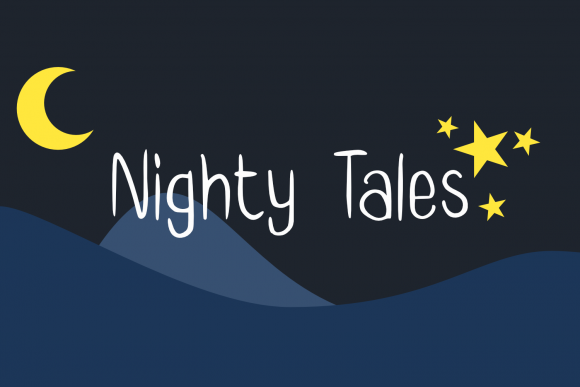
Black Carbony Font: A Cute Handwritten Typography for Digital Design
In the landscape of web and UI design, typography is more than just selecting a font; it's choosing a visual voice. When you're building landing pages, app screens, or online stores, the typeface you use sets the tone before a user even reads a word. Black Carbony, a simple and cute handwritten font, offers a distinct personality that is both flexible and sweet. This script handwritten font can become a cornerstone asset for creators who need a touch of warmth and approachability in their digital products.
Black Carbony for Website Headers and Hero Sections
The first impression of a website is often dominated by its hero section. Using Black Carbony here immediately establishes a friendly, creative, and engaging brand tone. This fonts’s handwritten character conveys authenticity and human touch, which is invaluable for brands that want to feel personal and relatable, such as creative portfolios, boutique e-commerce sites, or coaching service pages. In a hero title, Black Carbony's sweet and simple forms create a wonderful impact without overwhelming the layout. For optimal readability on desktop and mobile, ensure the font size is generous and the contrast against the background—whether light or dark—is strong. Pairing it with a clean, neutral sans-serif for supporting subheadings creates a clear visual hierarchy that guides the user's eye naturally.
Enhancing Landing Pages with Black Carbony Typography
Conversion-focused landing pages rely on clear messaging and emotional resonance. Integrating Black Carbony into key areas like value proposition headlines or testimonial quotes can significantly boost user engagement. The font’s cute and flexible nature makes it perfect for highlighting benefits or features in a way that feels less corporate and more conversational. Imagine a SaaS product landing page using this script handwritten font for its primary tagline: "Simplify Your Workflow." The handwritten style softens the message, making the product feel more accessible. It's crucial, however, to use it sparingly for these high-impact phrases. Avoid setting long body copy in Black Carbony; instead, let it shine as a display font while a standard sans-serif handles the explanatory text, maintaining scannability and professional readability.
Black Carbony in Online Store Branding and Banners
For online store owners, visual consistency across banners, product badges, and category headers builds a memorable brand identity. Black Carbony excels in this niche. Its endless variations allow you to create a cohesive yet dynamic look. Use it for seasonal sale banners ("Summer Sale"), special product collection titles, or even as stylized text on product imagery itself. The font injects a playful, handmade quality that can elevate brands selling artisanal goods, children's products, fashion, or lifestyle items. This premium font supports a consistent online identity by providing a unique typographic signature that users will associate with your brand's personality across every touchpoint, from the storefront to social media graphics derived from your web assets.
Using Black Carbony for Call-to-Action Buttons and Labels
Even small UI elements like buttons and labels benefit from thoughtful typography. Applying Black Carbony to a primary call-to-action button, such as "Get Started" or "Add to Cart," can make the action feel more inviting and less transactional. The sweet, handwritten style can reduce perceived friction and increase click-through rates. In practice, ensure the font remains legible at smaller sizes by checking its performance on various devices. On dark backgrounds, a light or white color for the font will maintain clarity. This fonts’s flexibility means it can adapt to these compact spaces while still contributing to the overall cute and creative aesthetic of your site or app screen.
Digital Readibility and Visual Hierarchy with Script Fonts
A common concern with script fonts is digital readability, especially on mobile screens. Black Carbony, being simple and deliberately cute, mitigates this issue with its clear character shapes and generous spacing. When implementing it in responsive layouts, test its appearance on multiple breakpoints. It is best suited for medium to large display sizes—perfect for section headings, blog post titles, or content section introductions. To establish a strong visual hierarchy, use Black Carbony as your primary accent font (H2 or H3 level), paired with a highly legible sans-serif or serif font for body paragraphs. This pairing creates a rhythm that is both visually appealing and functionally sound, guiding users through your content with ease and reinforcing brand trust through consistent, professional design.
Brand Tone and Identity for Digital Products
For digital product creators, from app developers to course creators, typography is a silent brand ambassador. Black Carbony communicates a tone of creativity, warmth, and approachability. Using this font across your product's marketing site, within the app interface for feature names, or on course sales page headers creates a unified brand experience. Its handwritten aesthetic tells users that your product or service is human-centered and friendly. This is particularly effective for brands in creative education, wellness, lifestyle, or any sector where building a personal connection is key to conversion. The font becomes a vital part of your digital brand kit, ensuring that every branded web experience feels cohesive and intentionally designed.
Pairing Black Carbony with Web Fonts for Balanced Layouts
Successful web design rarely relies on a single font. Font pairing is essential. Black Carbony, as a decorative display font, needs a strong, neutral counterpart. A simple sans-serif like Inter, Open Sans, or Roboto for body copy provides the perfect balance. For a more editorial or classic digital identity, a serif font like Merriweather or Lora can pair beautifully with Black Carbony's playful style, creating a sophisticated yet creative contrast. This combination allows you to explore the font's endless variations in headlines while maintaining optimal readability for all other text. Always verify the webfont availability and formats of Black Carbony to ensure smooth integration into your CSS and seamless performance across all browsers.